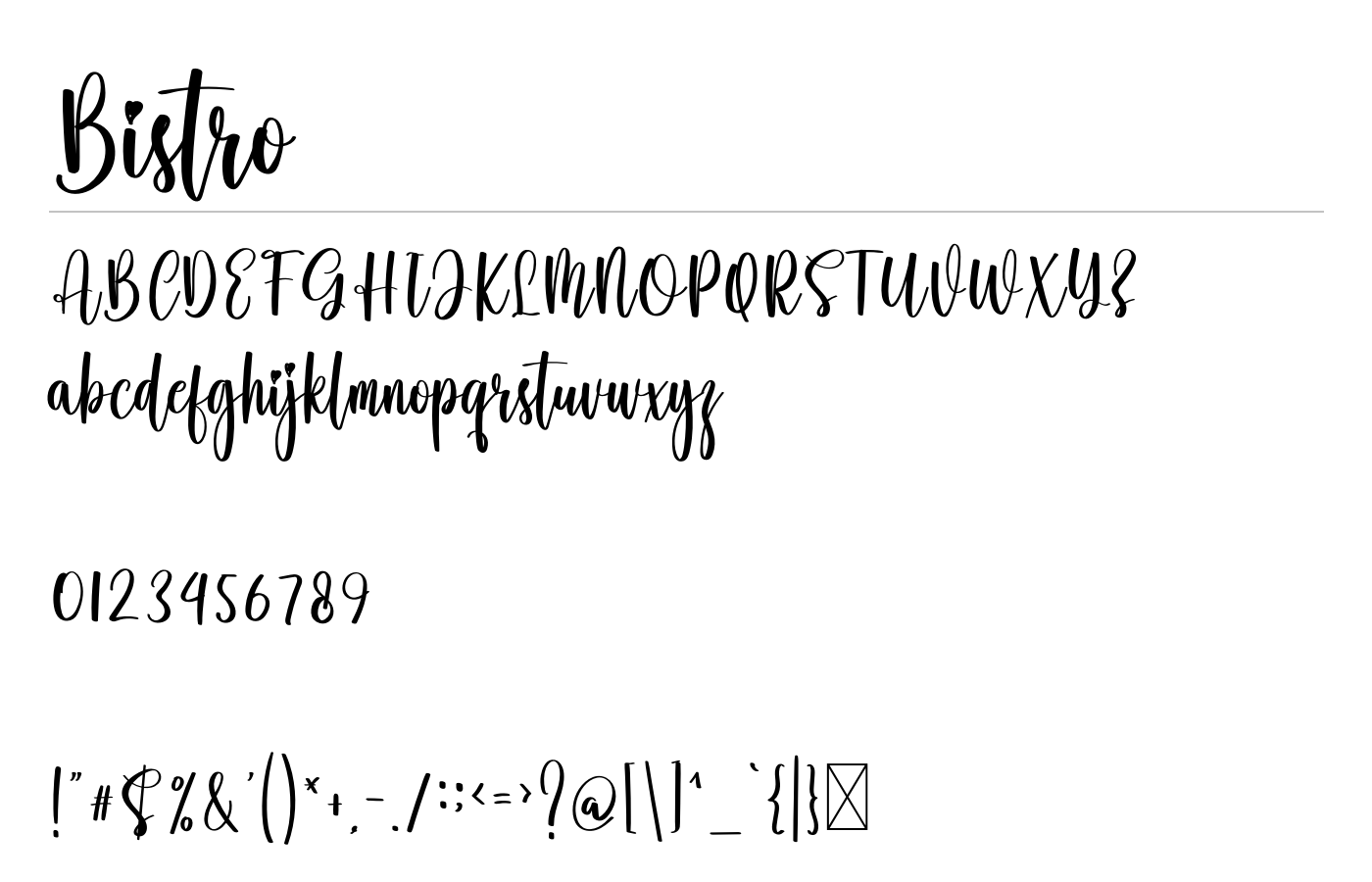
Bistro is a playful and elegant script font with a hand-drawn feel, featuring tall, flowing letterforms and delicate, high-contrast strokes. Its stylish, casual charm makes it perfect for branding, invitations, packaging, and any design that seeks a warm, personal touch. The font’s graceful curves and whimsical details convey a friendly, creative vibe ideal for lifestyle and boutique projects.
Bistro Font
About Bistro Font